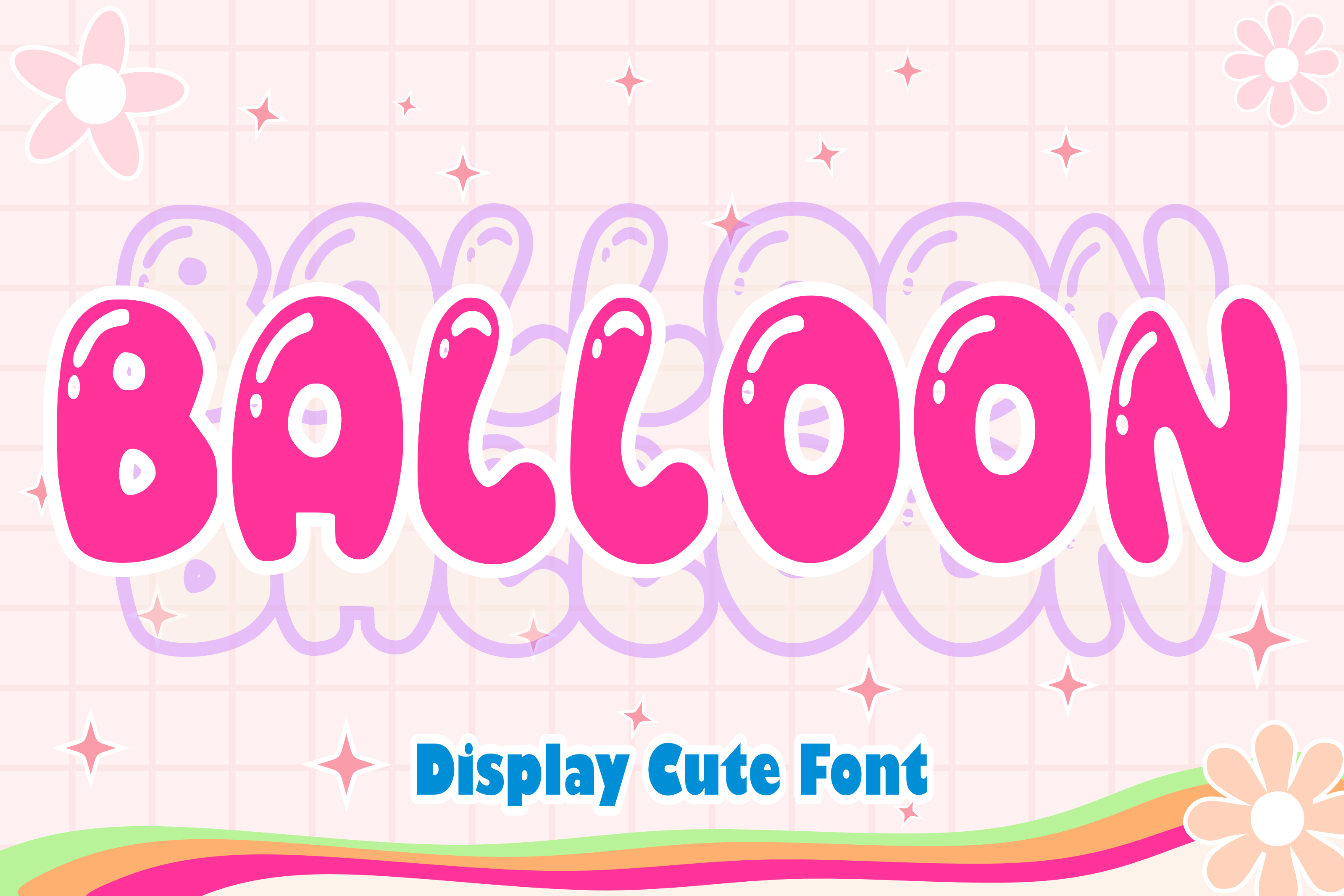
Balloon - Bubble Font Types
Introducing Balloons – a bubble font that evokes a sense of joy and imagination. It’s more than just a typeface, it’s the perfect companion for kids’ projects that deserve a touch of charm. With its cheerful contours and adorable springy appeal, Balloons easily stand out on headlines or posters, turning any ordinary task into a fun festival. Whether to liven up a birthday celebration or add a cheerful touch to a party, Balloons is a cheerful font that is sure to delight, entertain and captivate.